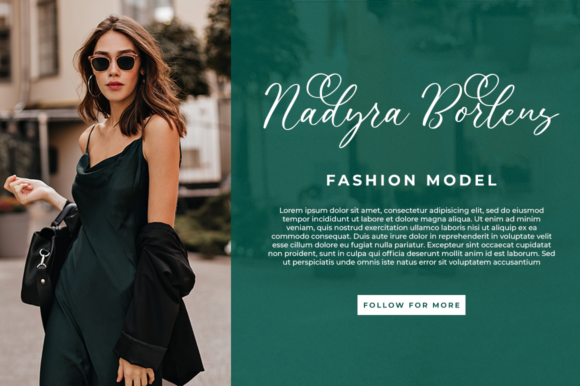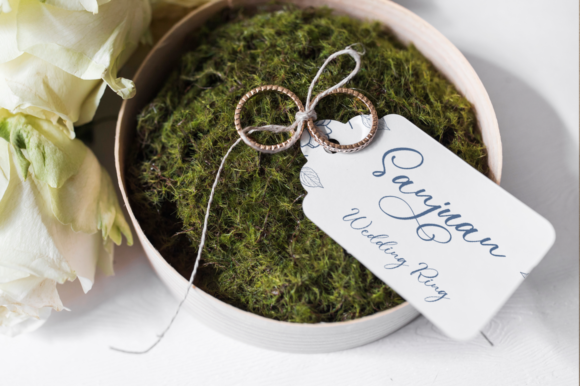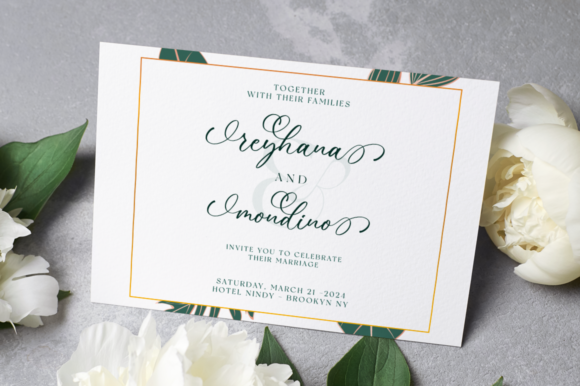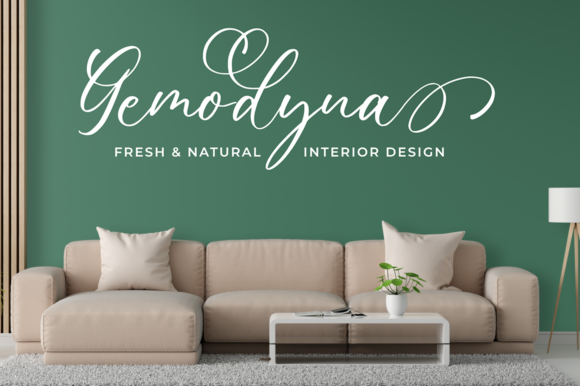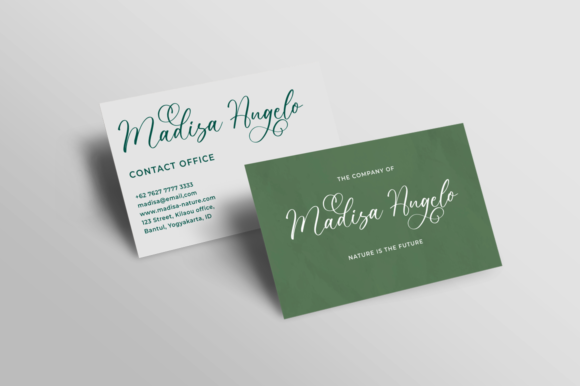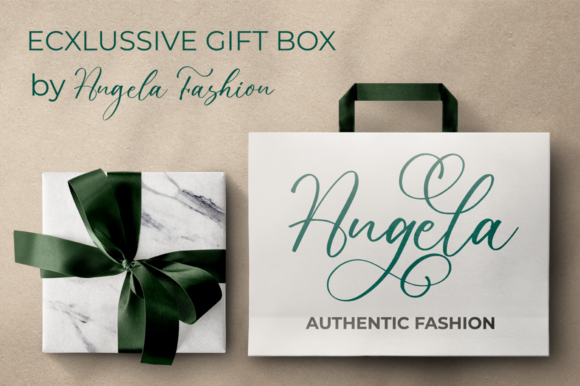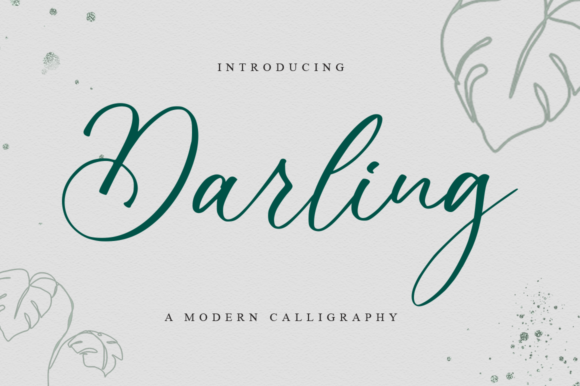
Introducing Darling Font: Elevate Your Designs with Elegance and Charm
Are you a designer or crafter looking for a font that exudes elegance and charm? Look no further than Darling Font, a beautiful handwritten font that is perfect for adding a touch of sophistication to your designs. In this article, we’ll take a closer look at Darling Font, its features, and how it can elevate your designs.
What is Darling Font?
Darling Font is an elegant handwritten font that feels equally charming and elegant. Its unique and stylish design makes it perfect for a variety of design projects, from wedding invitations and thank you cards to quotes, greeting cards, logos, and business cards. With Darling Font, you can add a customized touch to your designs and make them stand out from the crowd.
Key Features of Darling Font
- Elegant Handwritten Design: Darling Font features a beautiful handwritten design that is both elegant and charming.
- PUA Encoded: Darling Font is PUA encoded, which means you can access all of the glyphs and swashes with ease.
- Versatile: Darling Font is perfect for a variety of design projects, including wedding invitations, thank you cards, quotes, greeting cards, logos, and business cards.
Uses of Darling Font
Darling Font is a versatile font that can be used for a variety of design projects. Here are some of the most popular uses of Darling Font:
- Wedding Invitations: Darling Font is perfect for wedding invitations, adding a touch of elegance and sophistication to your wedding stationery.
- Thank You Cards: Darling Font is also great for thank you cards, allowing you to express your gratitude in a stylish and elegant way.
- Quotes: Darling Font is perfect for quotes, adding a touch of elegance and sophistication to your inspirational and motivational quotes.
- Greeting Cards: Darling Font is also great for greeting cards, allowing you to create beautiful and stylish cards for any occasion.
- Logos: Darling Font can be used to create elegant and sophisticated logos for businesses and brands.
- Business Cards: Darling Font is also perfect for business cards, adding a touch of elegance and professionalism to your business card design.
Benefits of Using Darling Font
There are many benefits to using Darling Font in your designs. Here are some of the most significant advantages:
- Elegance and Sophistication: Darling Font adds a touch of elegance and sophistication to your designs, making them stand out from the crowd.
- Versatility: Darling Font is a versatile font that can be used for a variety of design projects.
- PUA Encoded: Darling Font is PUA encoded, which means you can access all of the glyphs and swashes with ease.
In conclusion, Darling Font is a beautiful and elegant handwritten font that is perfect for designers and crafters looking to add a touch of sophistication to their designs. With its PUA encoded feature, versatile design, and ease of use, Darling Font is a great addition to any design project. Whether you’re creating wedding invitations, thank you cards, quotes, greeting cards, logos, or business cards, Darling Font is the perfect choice.